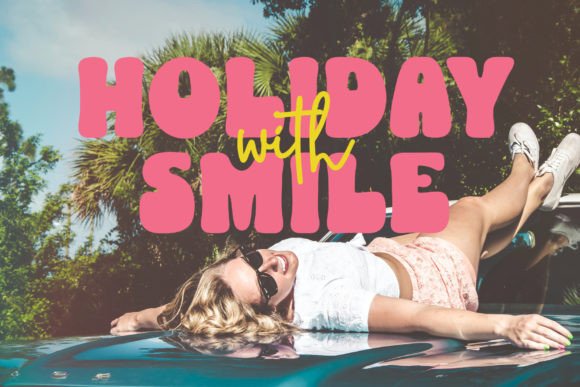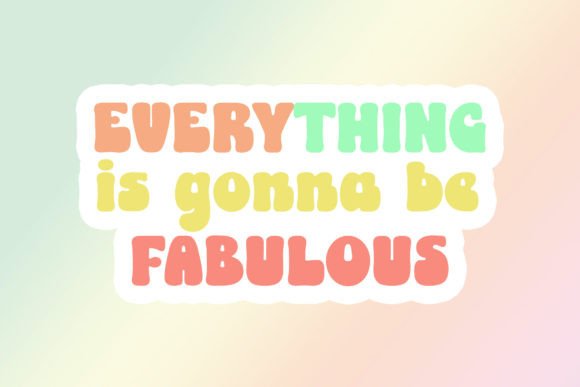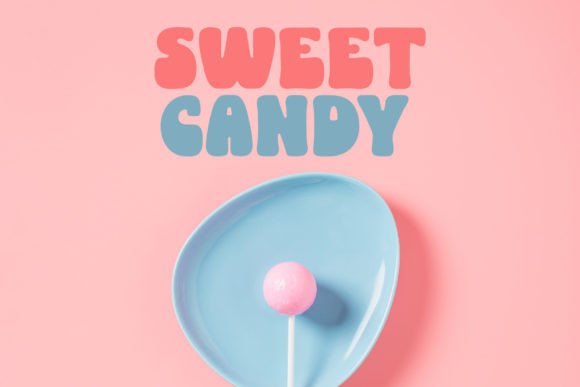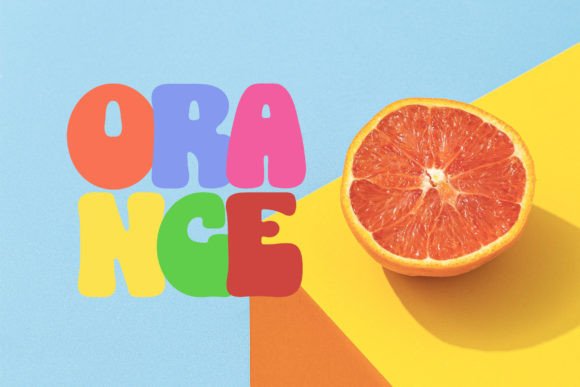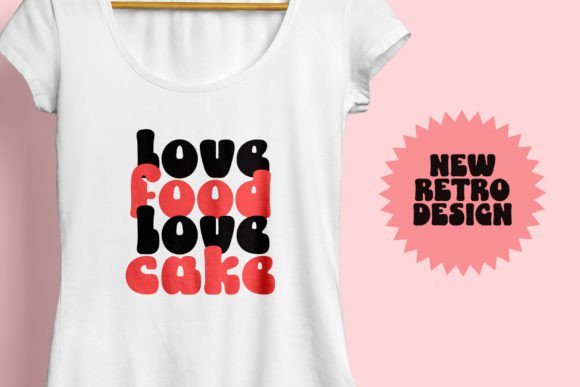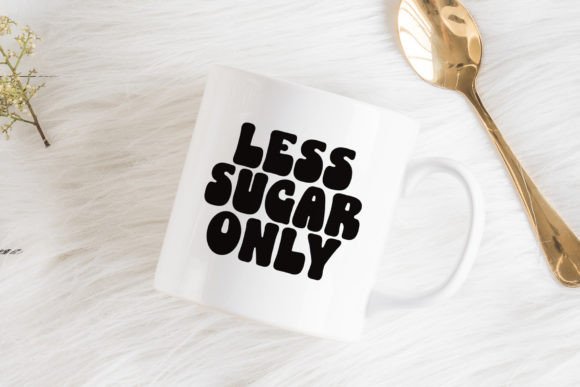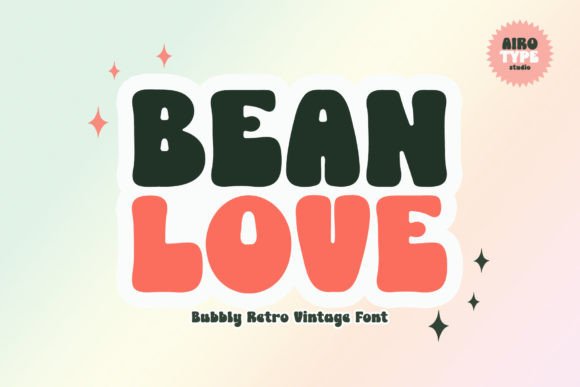
Introducing Bean Love Font: The Bold and Fun Retro Display Font
Are you a designer or crafter looking for a font that can add a touch of personality and whimsy to your creative projects? Look no further than Bean Love Font, a bold and fun retro display font that’s sure to become a true favorite. Masterfully designed to bring each of your creative ideas to the highest level, Bean Love Font is the perfect addition to your font collection.
What Makes Bean Love Font So Special?
Bean Love Font is a one-of-a-kind font that’s designed to make a statement. Its bold and fun design makes it perfect for use in a variety of creative projects, from branding and advertising to crafting and DIY tutorials. With its retro vibe and playful feel, Bean Love Font is sure to add a touch of personality to any project.
Key Features of Bean Love Font
- Bold and Fun Design: Bean Love Font is a bold and fun font that’s perfect for making a statement.
- Retro Vibe: With its retro design, Bean Love Font is perfect for projects that require a vintage or nostalgic feel.
- Playful Feel: Bean Love Font has a playful feel that’s perfect for adding a touch of personality to your projects.
- Easy to Read: Despite its bold design, Bean Love Font is easy to read, making it perfect for use in a variety of creative projects.
Uses for Bean Love Font
Bean Love Font is a versatile font that can be used in a variety of creative projects, including:
- Branding and Advertising: Use Bean Love Font to add a touch of personality to your brand or advertising campaign.
- Crafting and DIY Tutorials: Bean Love Font is perfect for use in crafting and DIY tutorials, adding a playful touch to your instructions and guides.
- Social Media Graphics: Use Bean Love Font to create eye-catching social media graphics that are sure to grab attention.
- Signs and Posters: Bean Love Font is perfect for use in signs and posters, adding a bold and playful touch to your message.
Tips for Using Bean Love Font
Here are a few tips for using Bean Love Font in your creative projects:
- Use it as a Headline Font: Bean Love Font is perfect for use as a headline font, adding a bold and playful touch to your title or heading.
- Pair it with a Simple Font: For body text, pair Bean Love Font with a simple font to create a striking contrast.
- Experiment with Colors: Bean Love Font looks great in a variety of colors, so don’t be afraid to experiment and find the perfect hue for your project.
Bean Love Font is a bold and fun retro display font that’s sure to become a true favorite among designers and crafters. With its playful feel and retro vibe, Bean Love Font is perfect for use in a variety of creative projects, from branding and advertising to crafting and DIY tutorials. Whether you’re looking to add a touch of personality to your project or simply want to make a statement, Bean Love Font is the perfect choice.